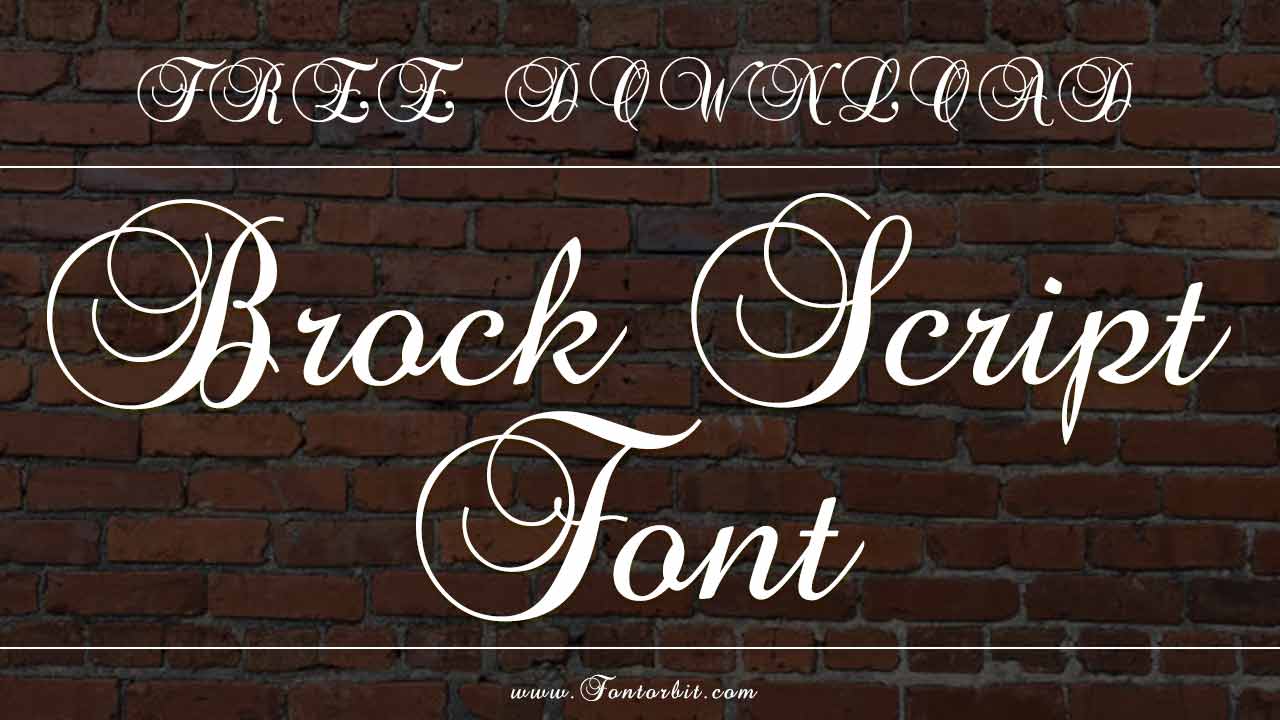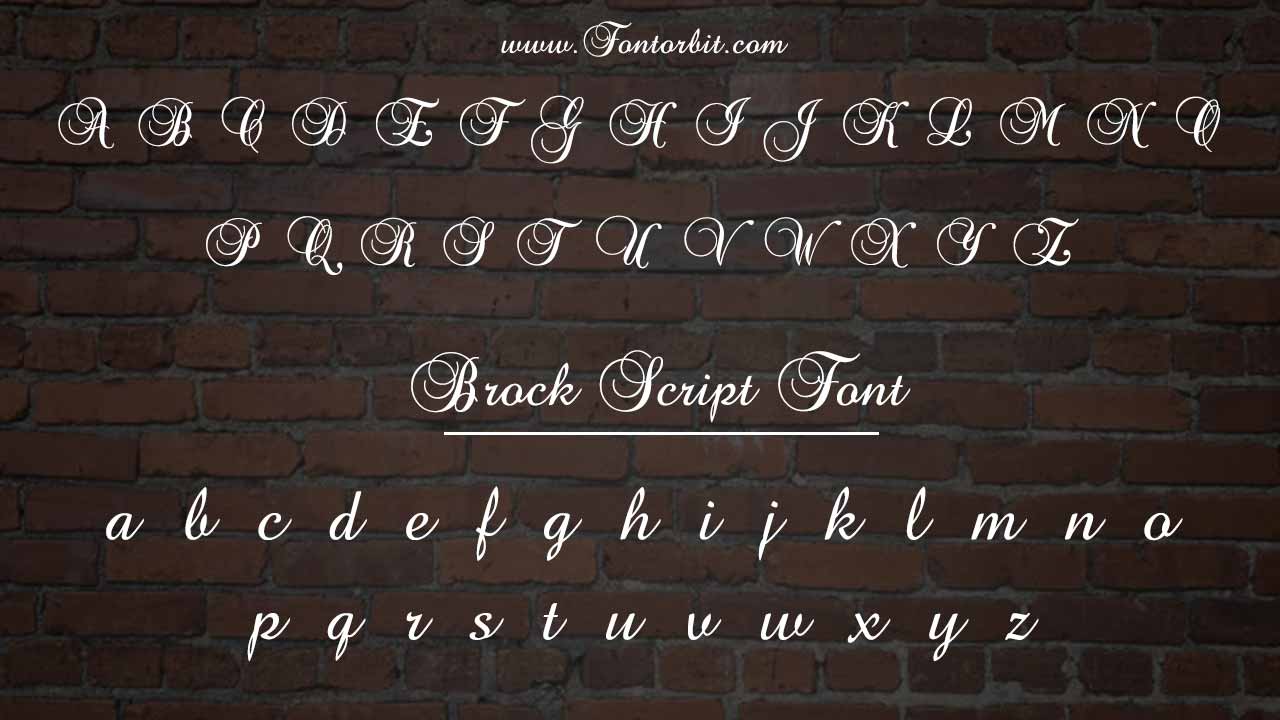
Brock Script Font, created by Dieter Steffmann, is a beautifully crafted script typeface. Known for its flowing and elegant design, it is the perfect choice for various types of design work. This versatile font is used in branding, advertising, printed materials, and much more. Whether you’re creating luxury branding, wedding invitations, or social media posts, Brock Script adds sophistication and timeless appeal.
Why Choose Brock Script Font?
Dieter Steffmann, a renowned designer famous for his elegant typefaces, designed the Brock Script Font. This typeface combines beauty and functionality, making it suitable for various design applications. Let’s dive into the key features that make Brock Script a must-have:
- Elegant And Versatile – Whether for luxury branding, advertising, or wedding invitations, Brock Script delivers elegance and versatility.
- Supports Uppercase And Lowercase Letters – Brock Script provides flexibility in your typography projects, supporting both uppercase and lowercase letters.
- Includes Special Characters – With special characters, this font offers enhanced functionality for design projects, accommodating various stylistic elements and languages.
- Enhanced Readability – Despite its decorative nature, the font is highly legible, maintaining clarity even in intricate design settings.
- Supports Multiple Languages – Brock Script includes characters for different languages, making it adaptable to various linguistic needs.
Font Family Includes
Brock Script comes in the Brock Script Regular version. This is the primary and most widely used variant of the font. It is perfect for projects requiring a stylish, flowing script typeface.
Best Uses For Brock Script Font
1. Branding And Advertising
Brock Script Font is a popular choice in branding, particularly for businesses that want to evoke a sense of elegance. It’s frequently seen in luxury packaging, high-end advertising campaigns, and logos for premium brands. The font’s delicate curves and sophisticated style create an image of exclusivity.
2. Social Media & Captions
For those in the world of social media, Brock Script is an excellent option for captions, reader interactions, and video overlays. The elegant design of the font makes it ideal for influencer branding, YouTube thumbnails, Instagram posts, and even personalized email notifications. It stands out beautifully, ensuring your posts attract attention.
3. Sports And Entertainment
Brock Script has also made its mark in sports-related branding. You can see it featured in the NHL Shop and on merchandise for top players like Brock Nelson, Anders Lee, Josh Allen, Tom Brady, Saquon Barkley, Filip Gustavsson, Patrick Roy, and Adam Pelech. Whether it’s jerseys, fan posters, or promotional materials, Brock Script adds a refined touch to sports memorabilia.
4. Printed Materials
Brock Script is a perfect choice for printed materials, including wedding invitations, certificates, business cards, and much more. It offers a unique blend of Old School charm and modern appeal, making it suitable for various occasions and celebrations.
5. Personalized Advertising
For businesses seeking a touch of luxury in their advertising, Brock Script works wonders. Whether for high-end brochures, business cards, or invitations, it adds a personalized, stylish element. It’s ideal for any promotional material looking to leave a lasting impression.
6. Web And UI Design
In today’s world, designers often turn to elegant script fonts to add artistic flair to web design. Brock Script fits seamlessly in dialog windows, modal windows, and UI elements. Its sophisticated appearance enhances the aesthetics of captions, settings, and even Captions Settings Dialog in digital interfaces.
Final Thoughts
Brock Script Font is a must-have for any designer or business owner who values classic elegance with modern versatility. Whether you’re working on branding, social media captions, WPG recap, or printed materials, Brock Script elevates your design. The font’s broad character map, readability, and aesthetic appeal make it a top choice for various design needs. Thanks to its free availability and cross-platform compatibility, it remains an excellent tool for designers and businesses.